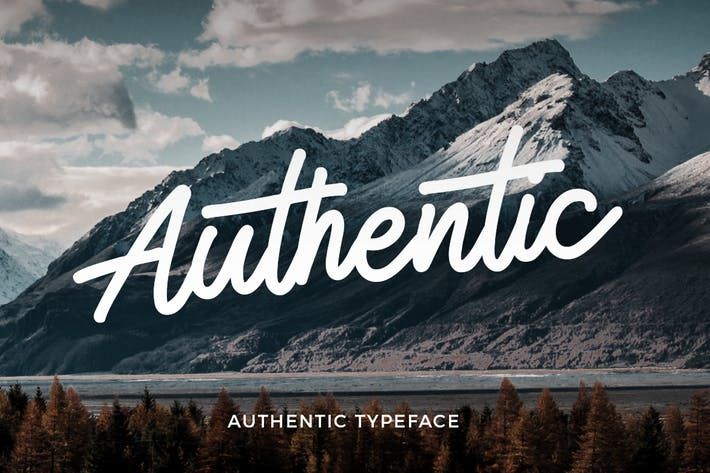
Authentic Monoline
Authentic Monoline Script Font
Authentic Monoline is a script font inspired by vintage lettering. It can be used in different purposes: lettering and logotype, labels, t-shirts, product packaging, invitations, advertising, and any classic / vintage typography design projects.